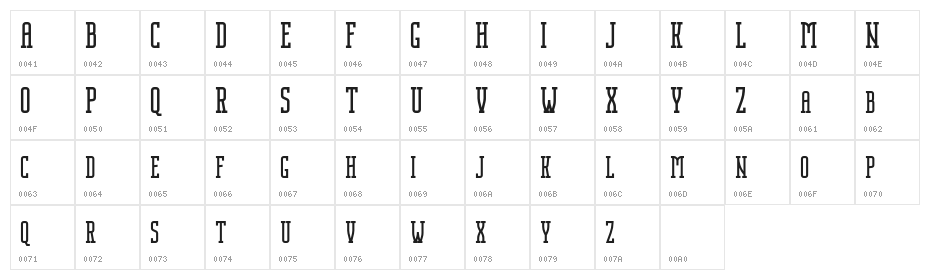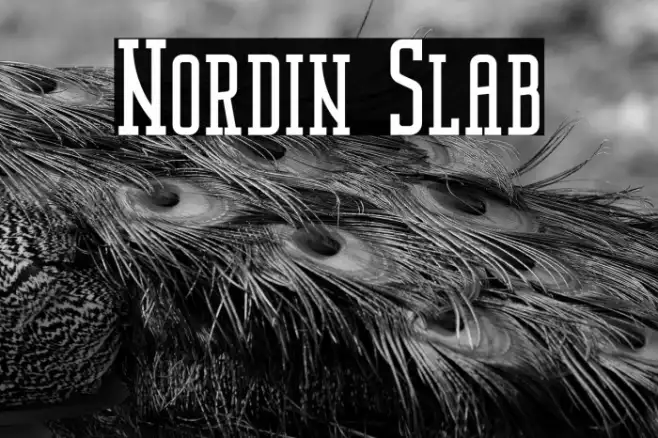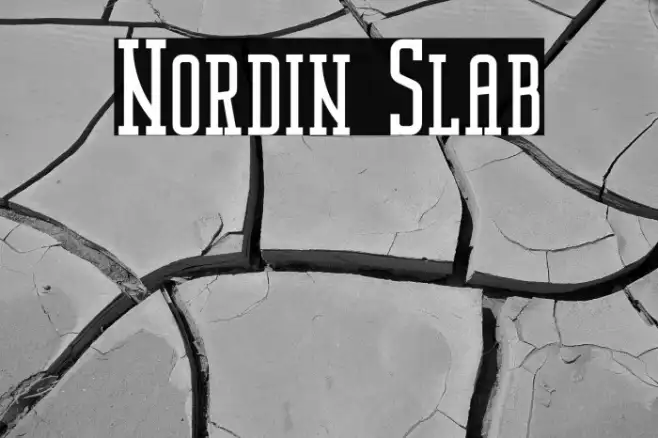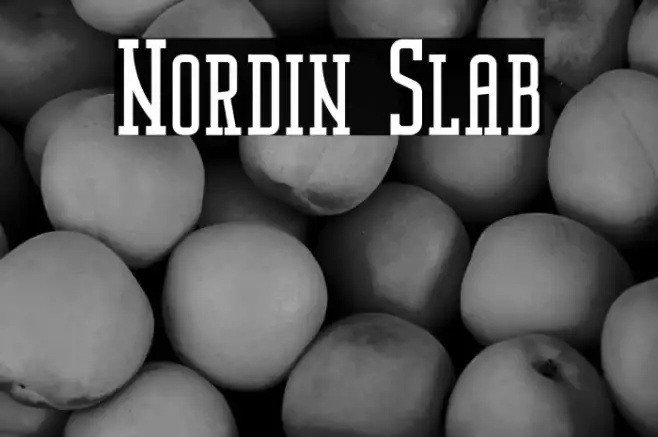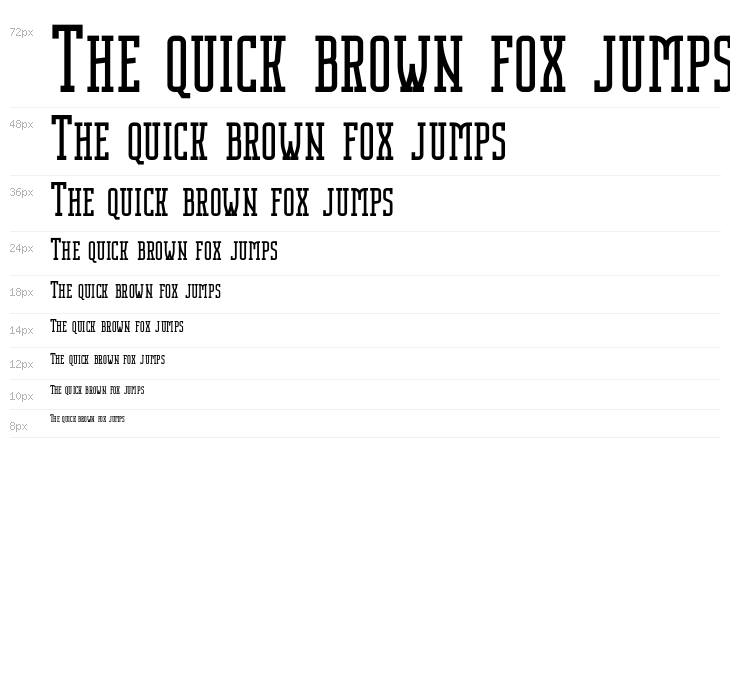
Nordin Slab Font
Nordin Slab Description
This font features a bold and robust slab serif design, characterized by thick, block-like serifs that give it a strong and authoritative presence. The uppercase letters are tall and narrow, with a consistent stroke width that adds to its bold appearance. The font lacks lowercase letters and numerals, focusing solely on uppercase characters. The overall design is reminiscent of vintage typefaces used in posters and signage, offering a classic yet impactful look. Its geometric structure and clean lines make it suitable for attention-grabbing headlines and titles.
| Proposed Projects | Ideal for use in posters, signage, branding projects, and any design requiring a bold, vintage aesthetic. |